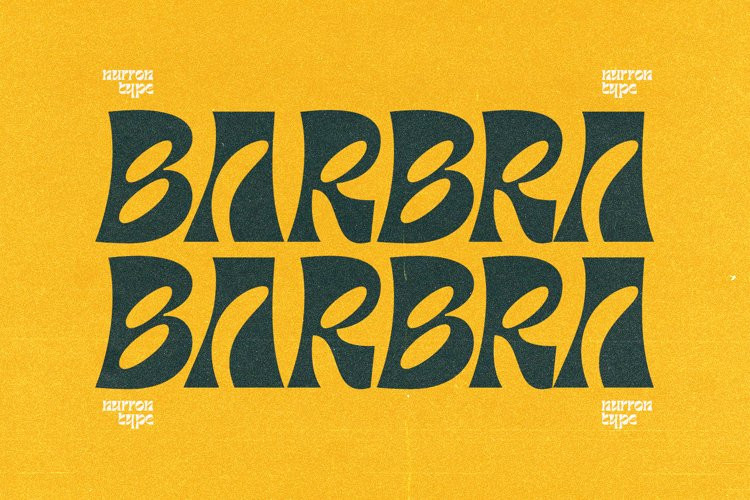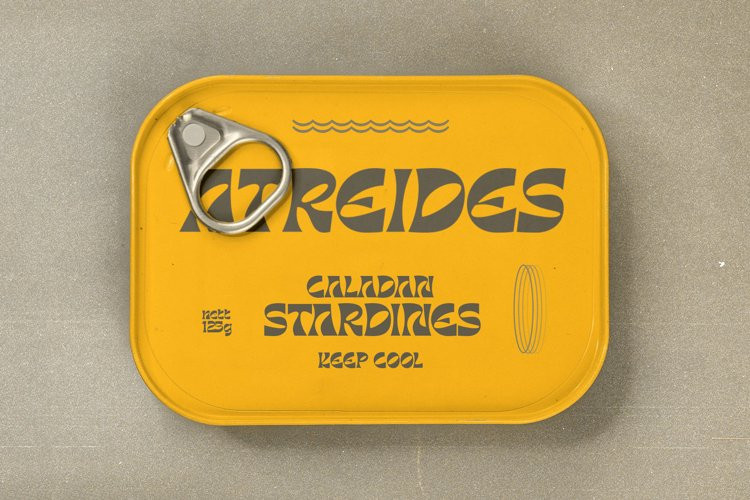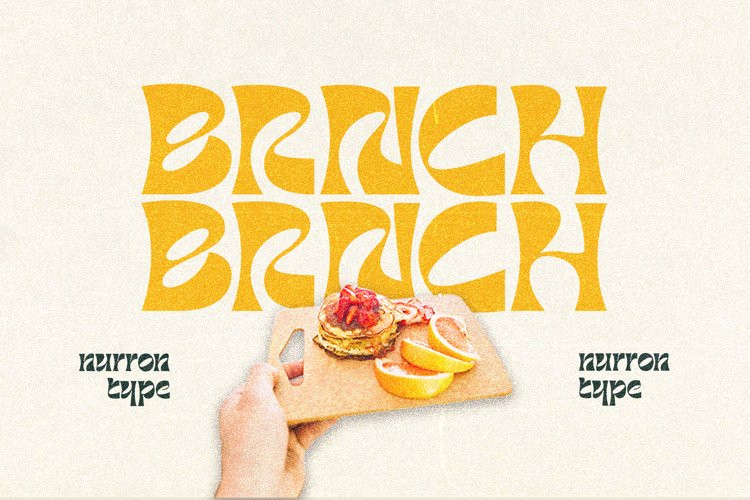
Barbra Font
Barbra FontBarbra Display is a retro family font with unique letterforms. It has regular, high, and italic options. Each letter was developed to create harmonization.
Barbra Font